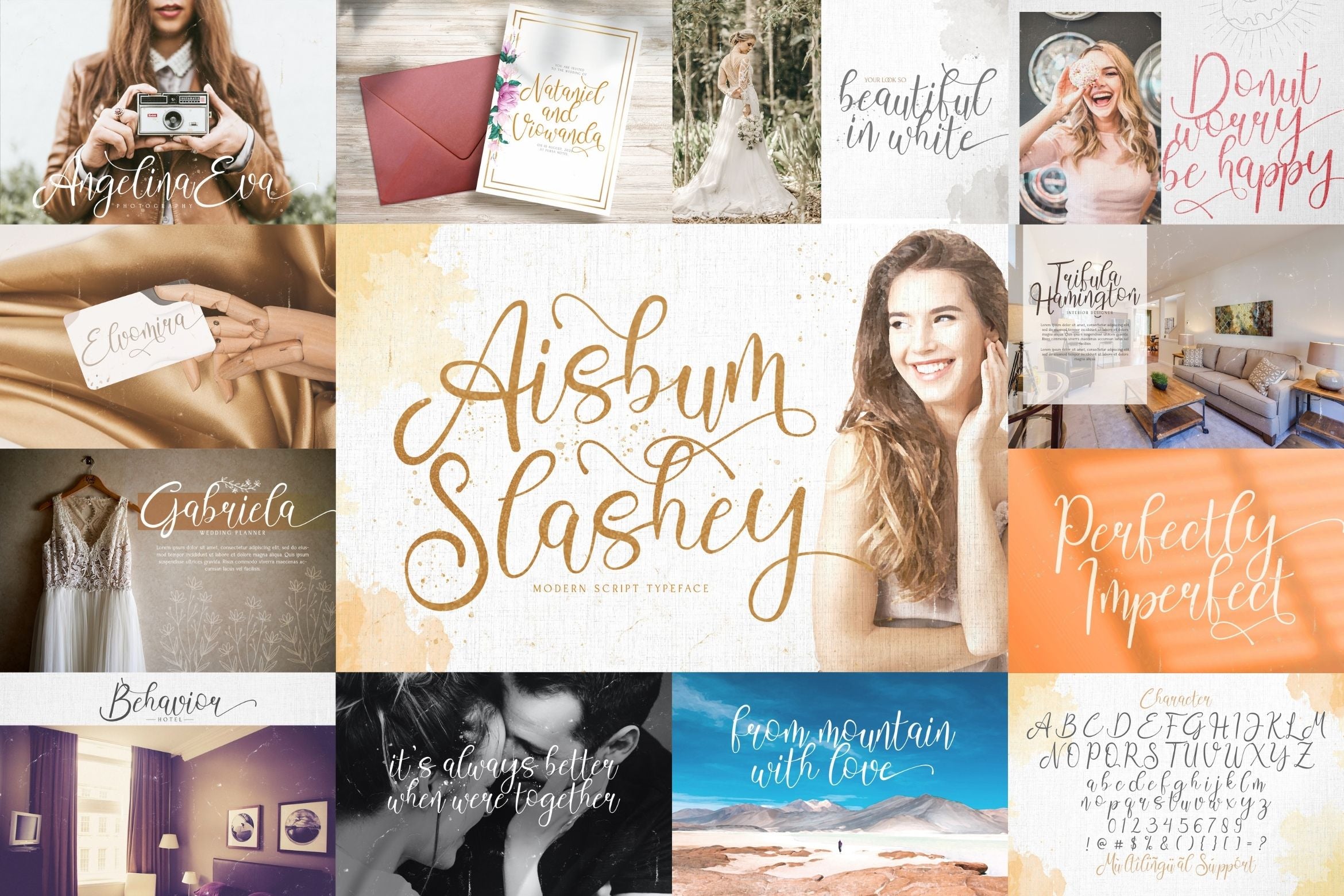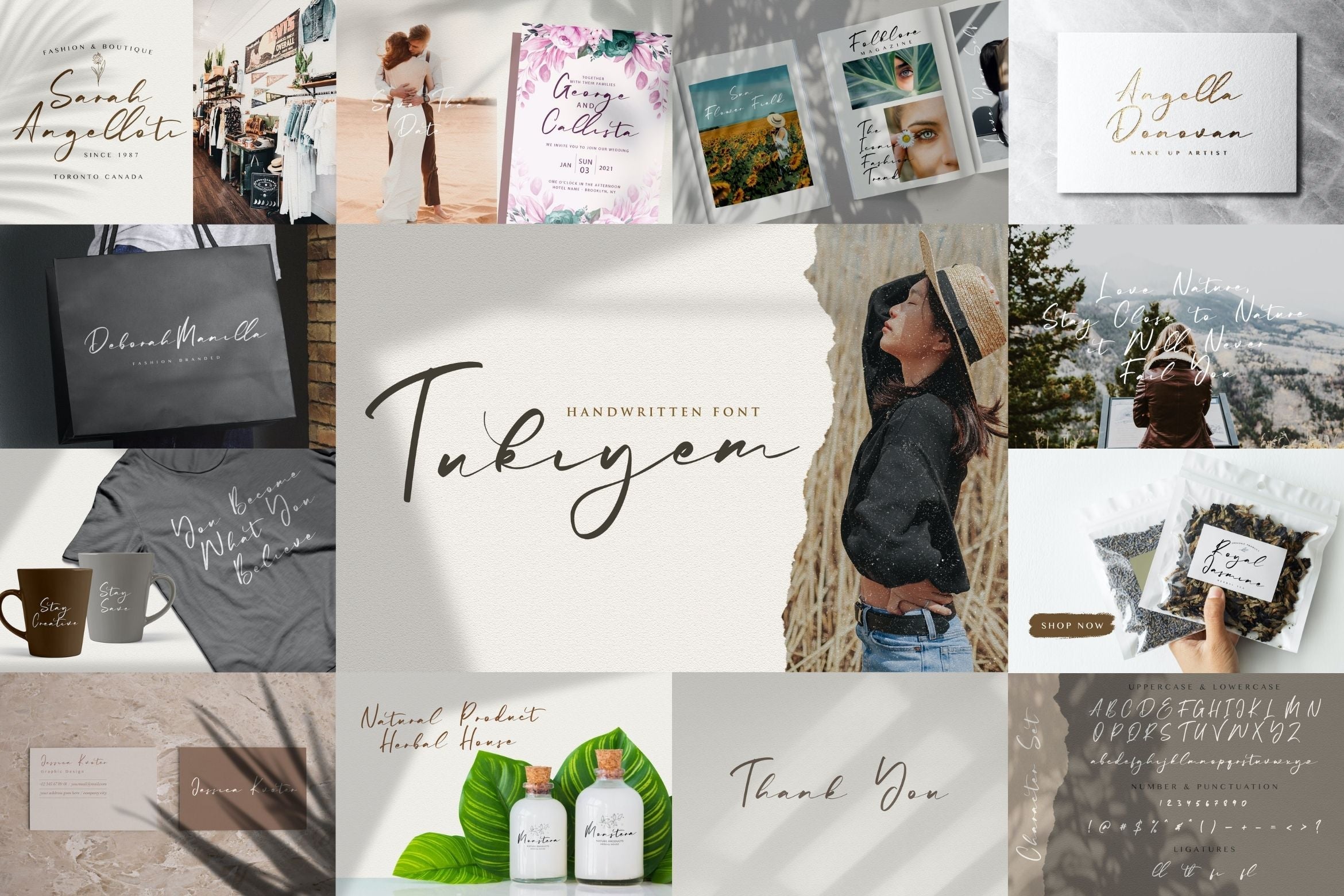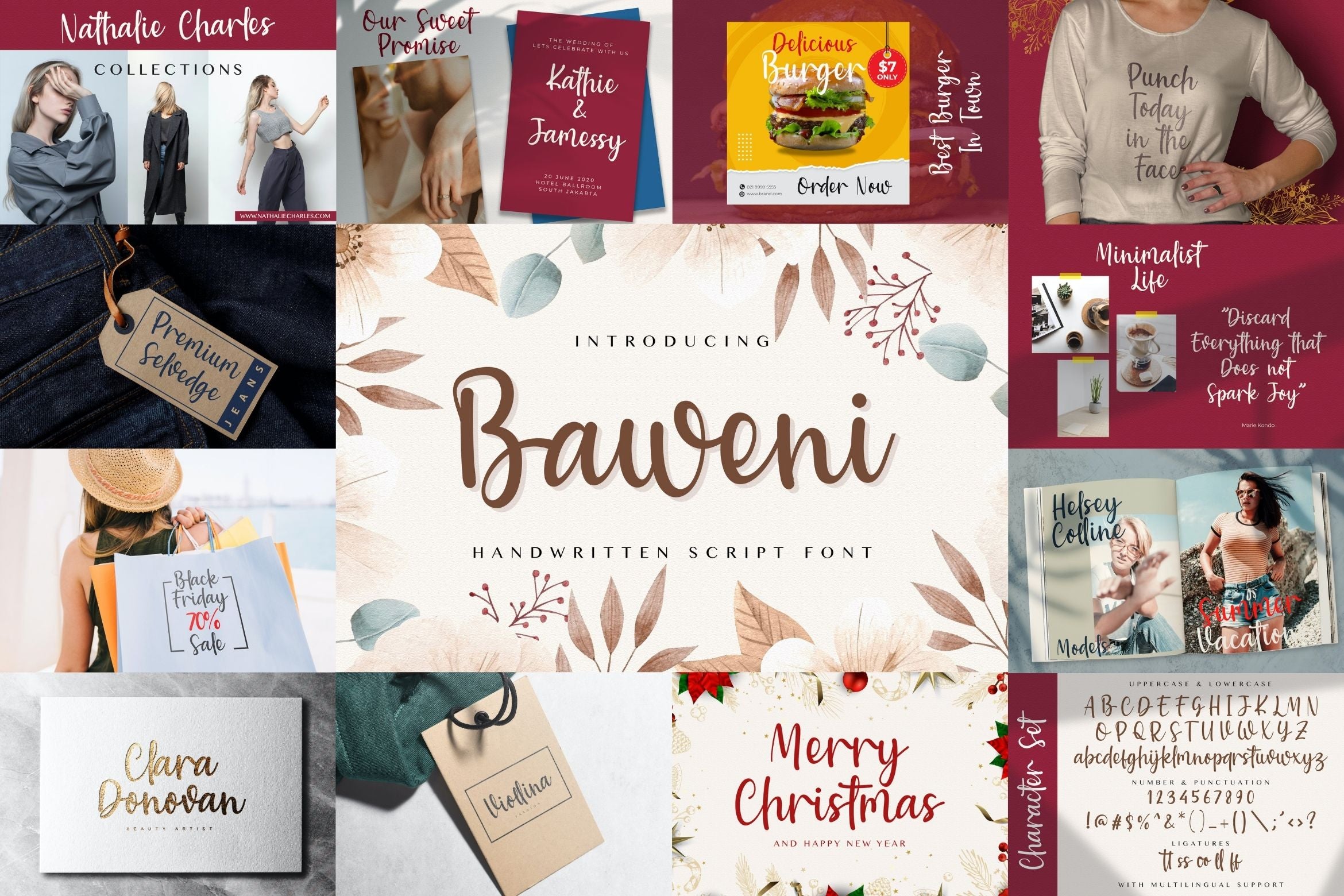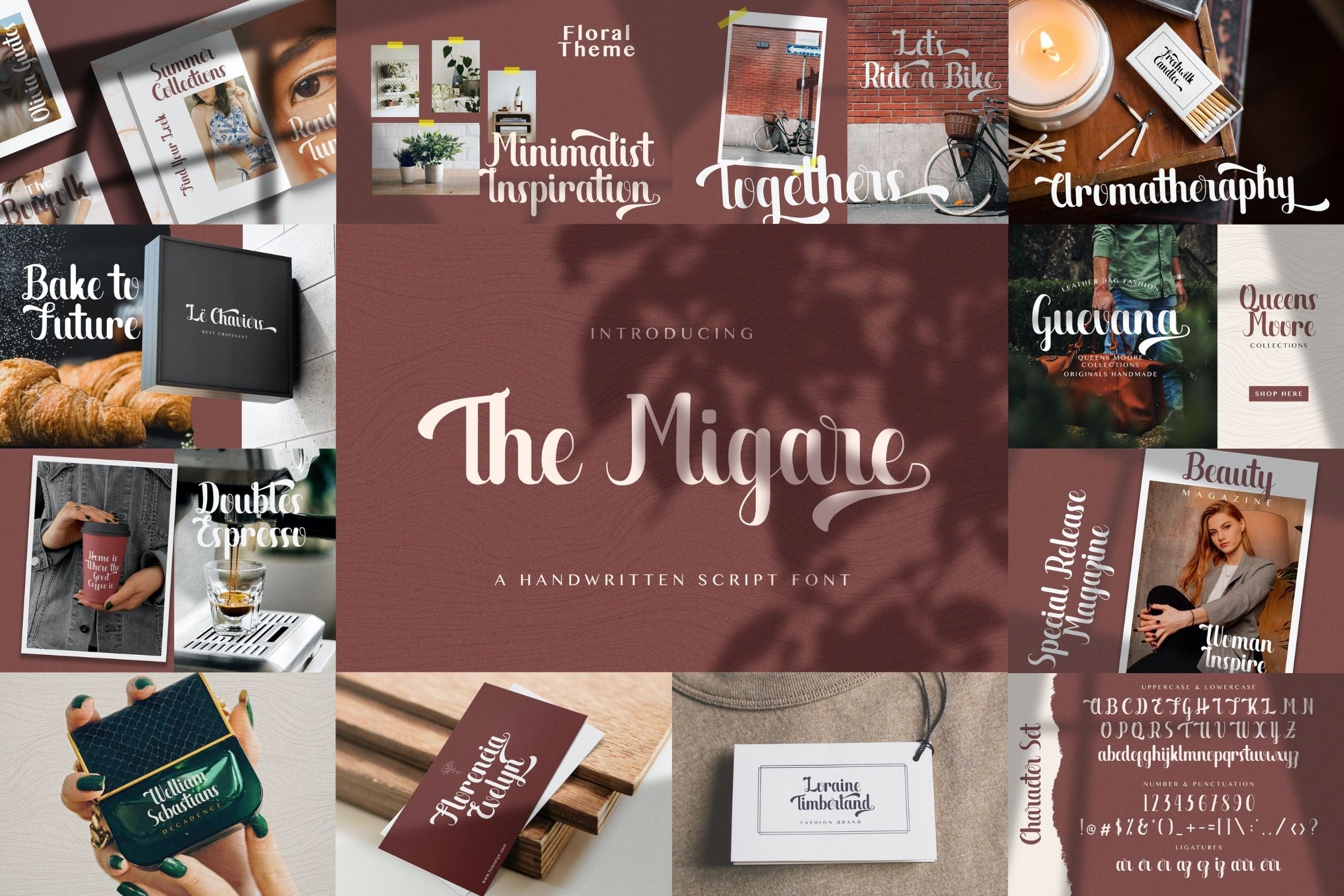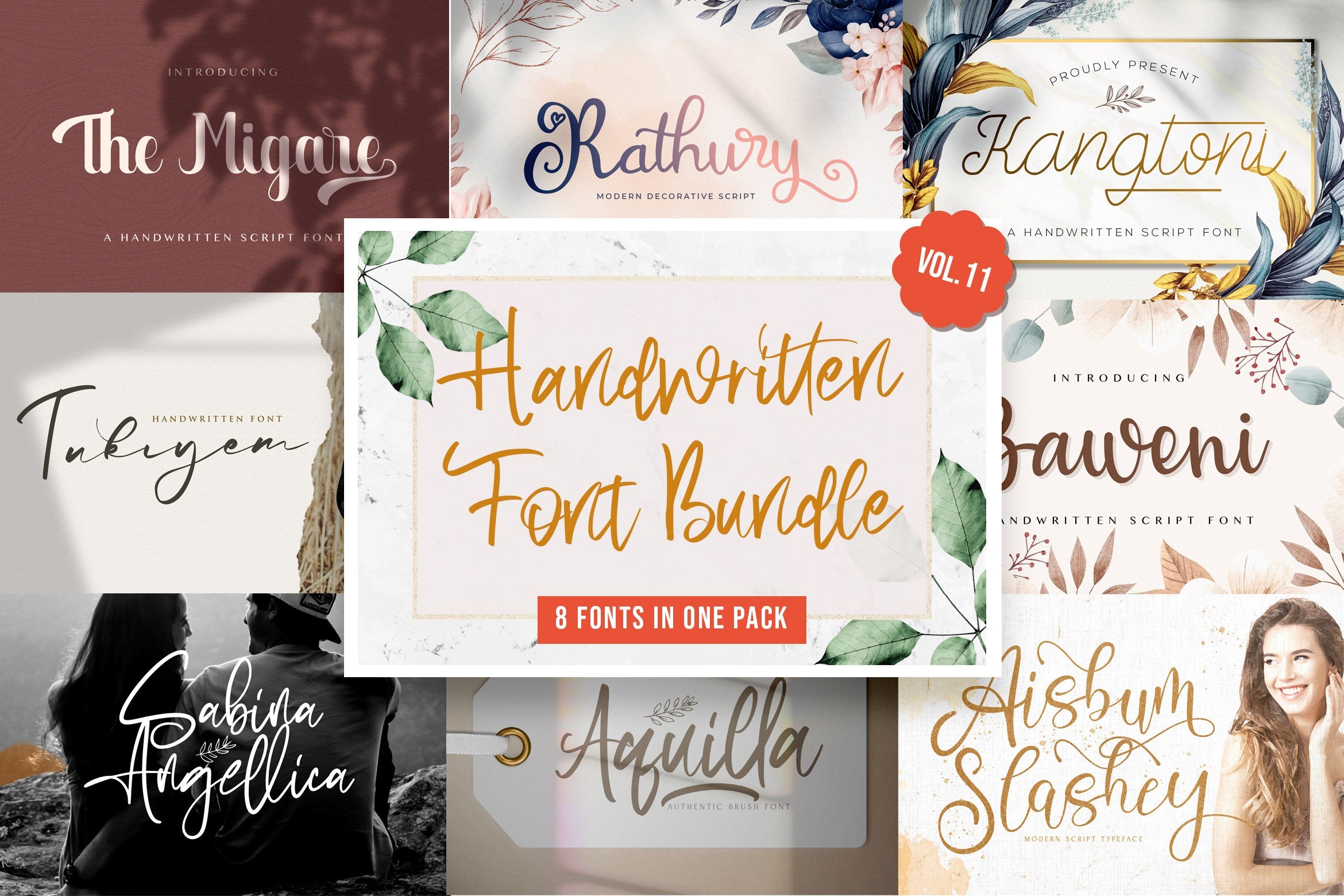
About Handwritten Font Bundle Vol 11
Handwritten Font Bundle Vol 11 is a delicate, elegant and flowing handwritten font. This font bundle contains 8 high quality handwritting script font, it will look simply magical in a wide range of design projects, and also that will look particularly adept when used in logos, branding, packaging design, and much more. It has beautiful and well balanced characters and as a result, it matches a wide pool of designs. Add it to your most creative ideas and notice how it makes them come alive! FONTS INCLUDED : 1. The Migare 2. Baweni 3. Kangtoni 4. Rathury 5. Tukiyem 6. Sabina Angellica 7. Aquilla 8. Aisbum Slashey Fonts available in format : OTF, TTF, WOFF, WOFF2